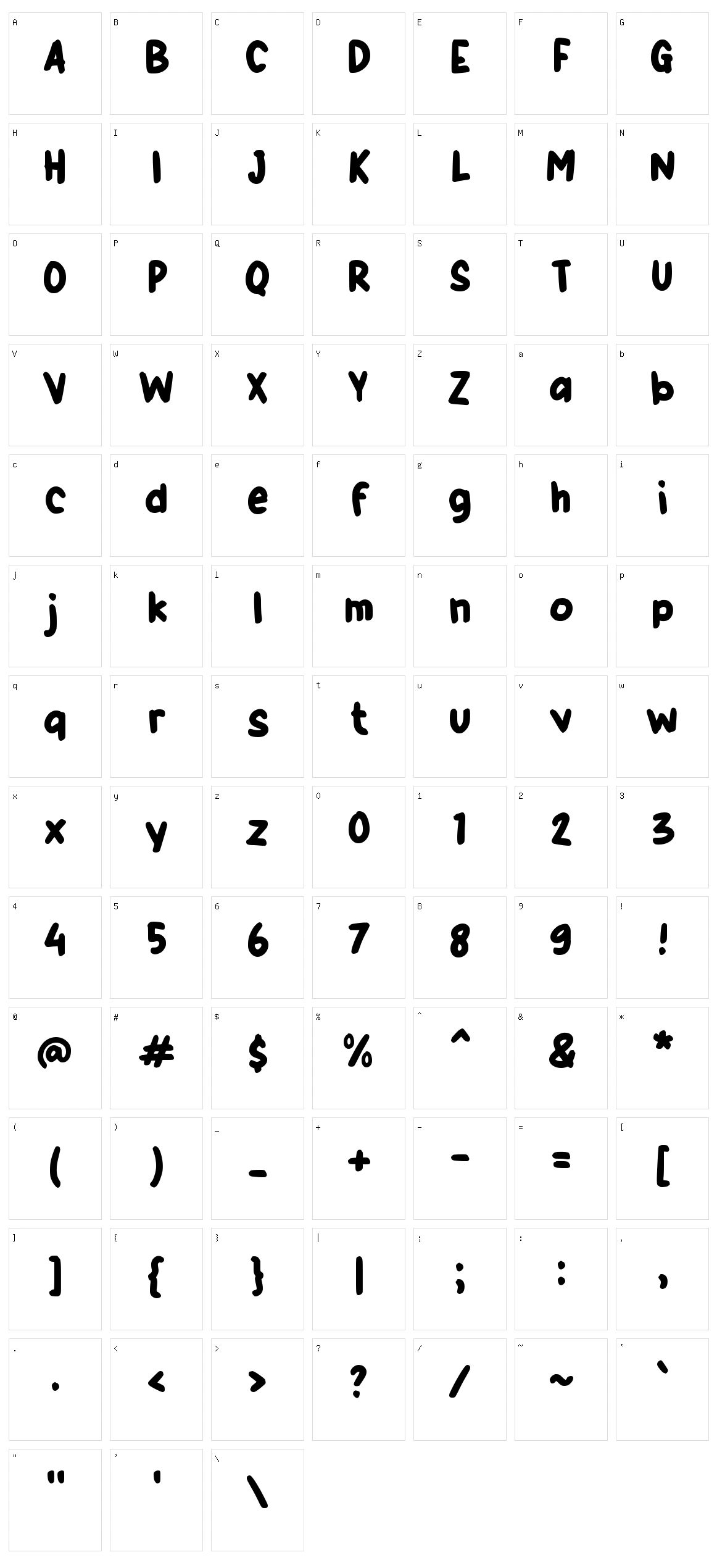
The free font g Good Food is carefully designed by wep, showcasing a thoughtful balance of creativity and usability and falls under the Script font style. When you download the ZIP file, it contains only 12.75 KB of font files, making it lightweight and quick to download. Please review the license details below to understand permitted usage and distribution rights. If license information is not available, we recommend using this font for personal projects only or contacting the author directly for commercial usage permissions.